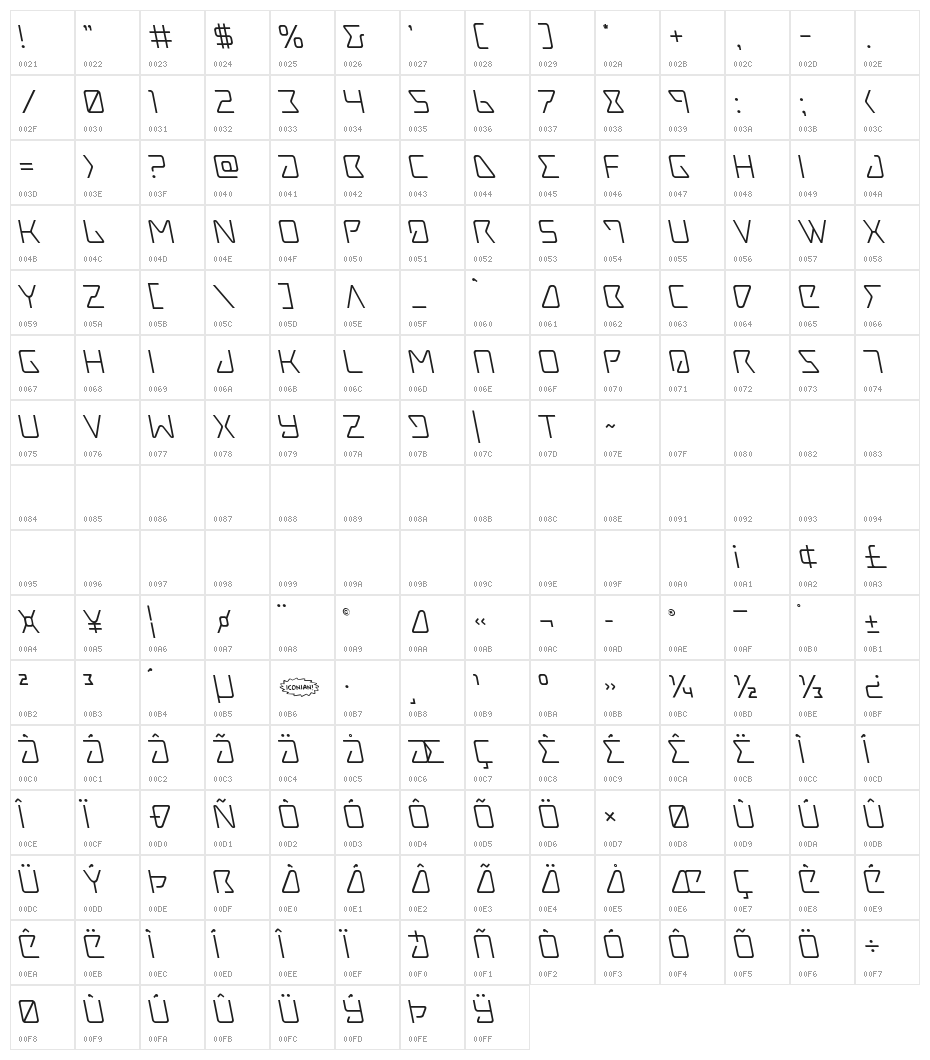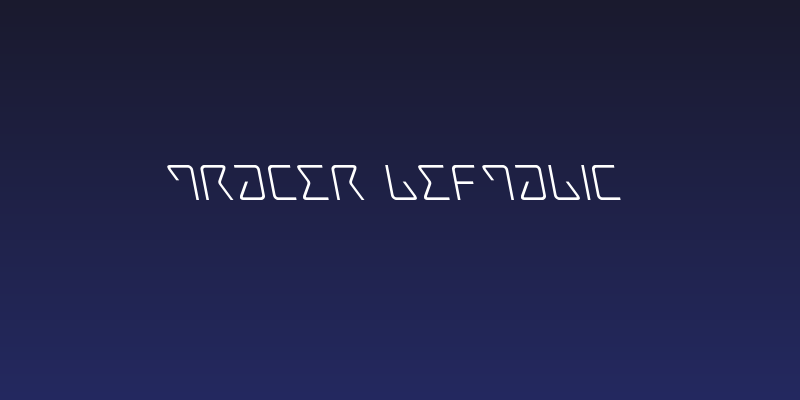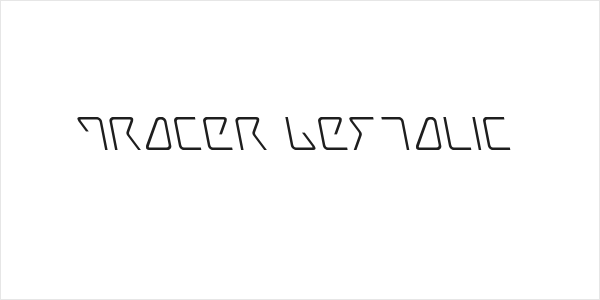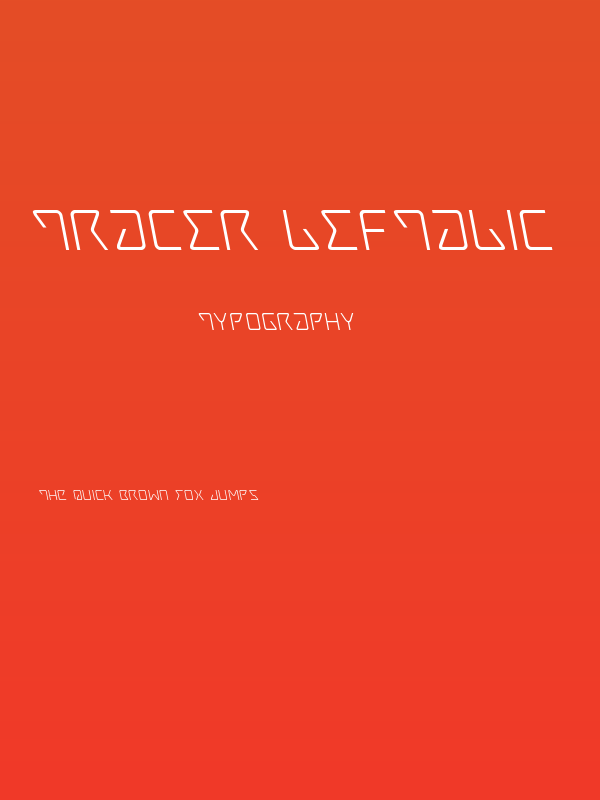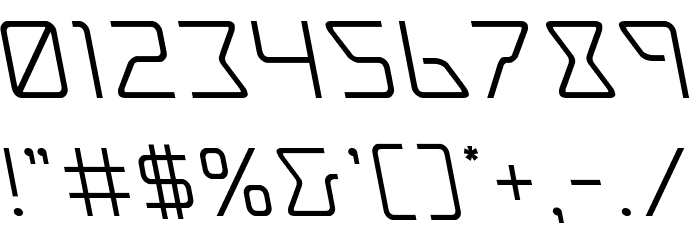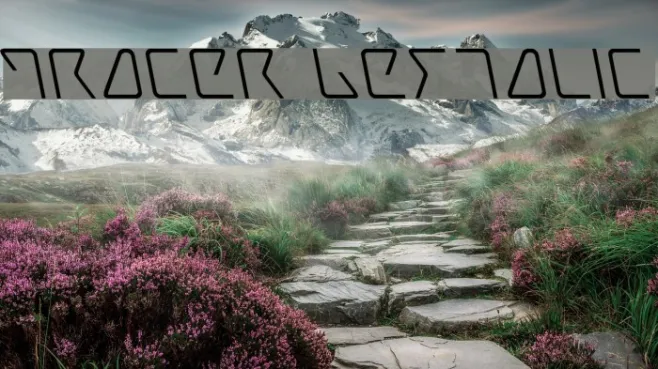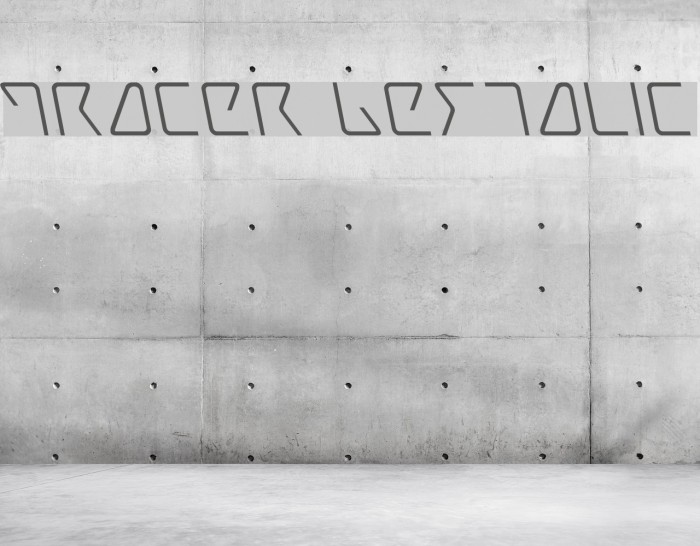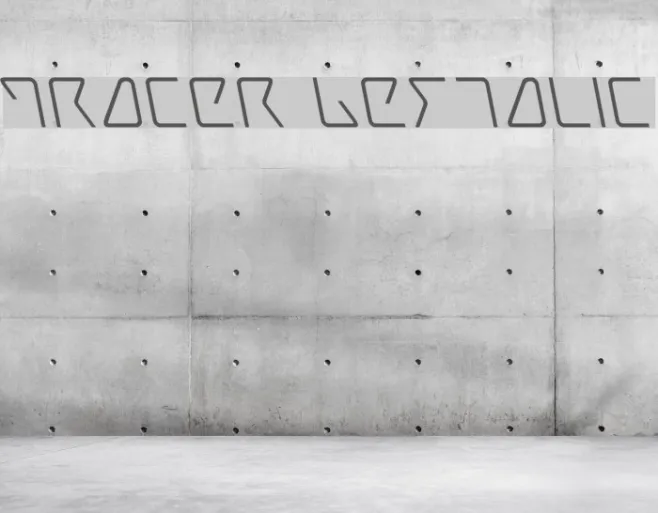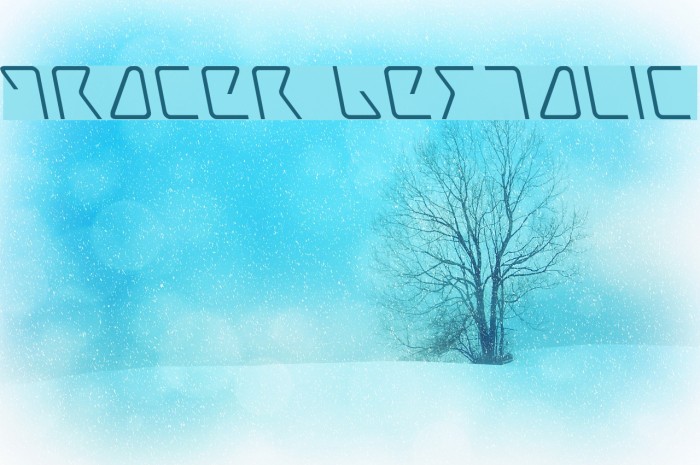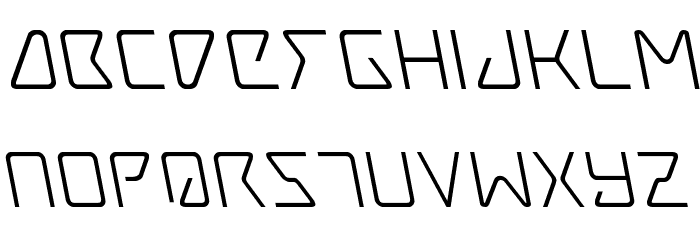
Tracer Leftalic Font
Tracer Leftalic Description
This font features a futuristic and geometric design with angular and sharp edges. The characters are constructed with a consistent line thickness, giving it a uniform appearance. The letters have a unique slant, adding a sense of motion and dynamism. The uppercase and lowercase letters maintain a similar style, with the lowercase being slightly smaller in size. Numbers and special characters follow the same angular and modern aesthetic, making the font cohesive across all characters. This style is particularly suited for projects that require a modern and tech-savvy look.
| Proposed Projects | Ideal for tech branding, sci-fi themed designs, video game interfaces, and modern advertising. |